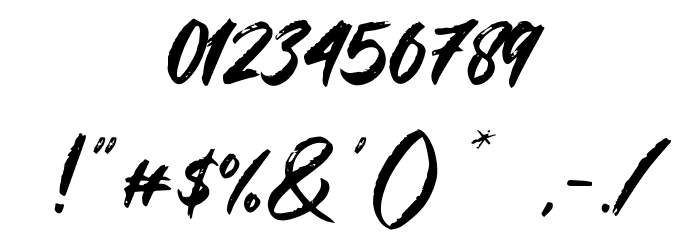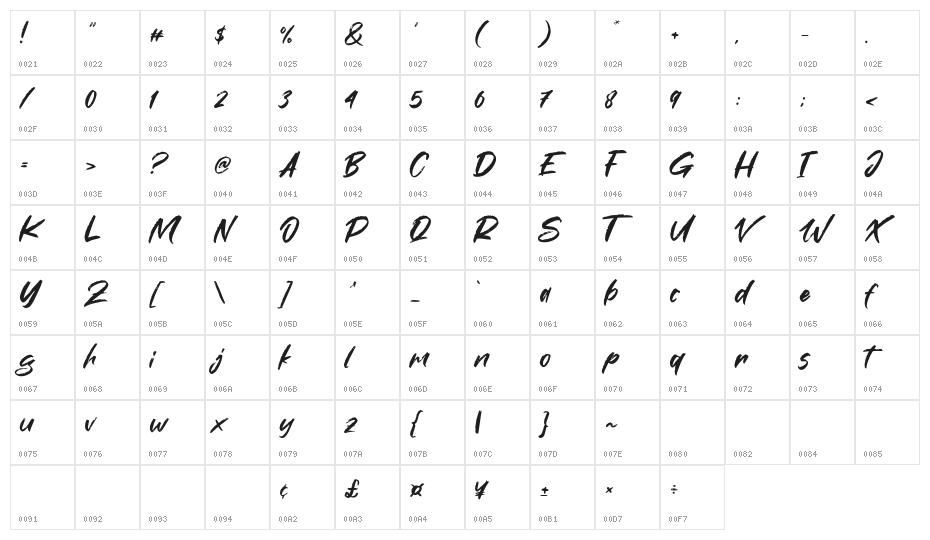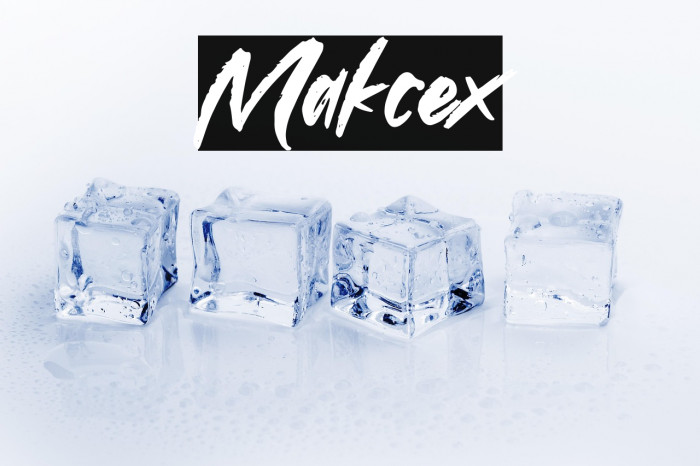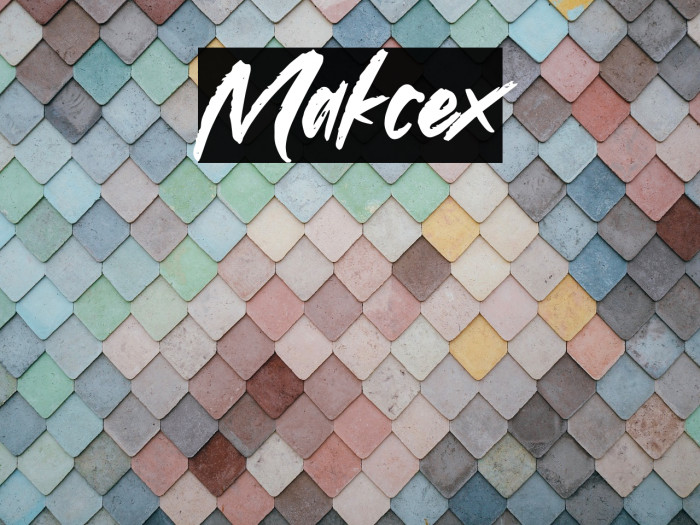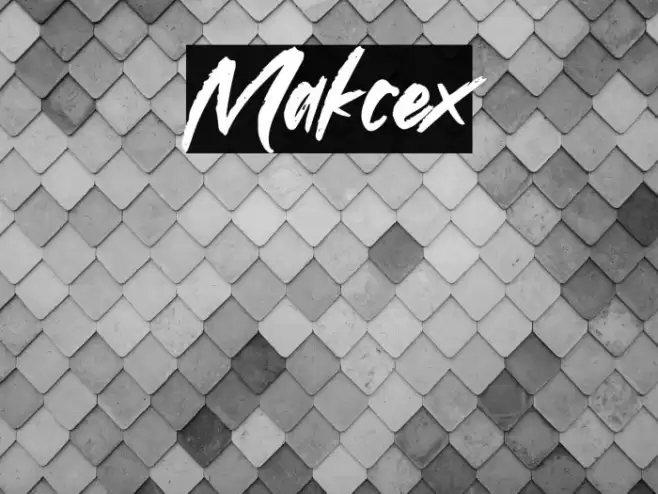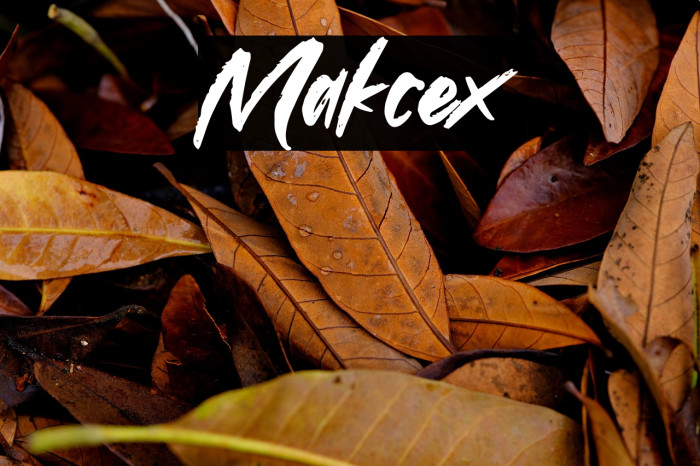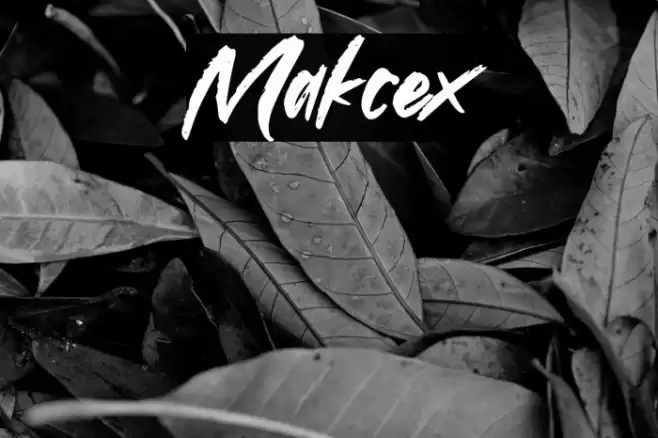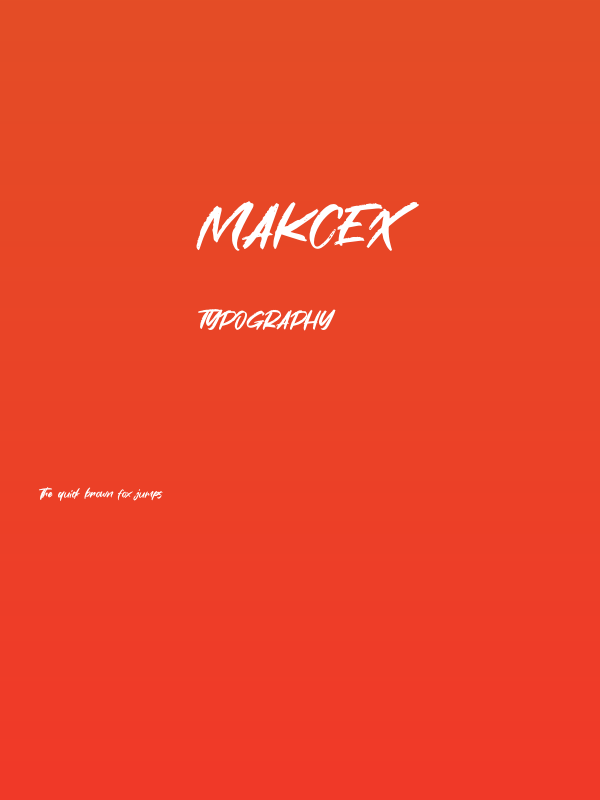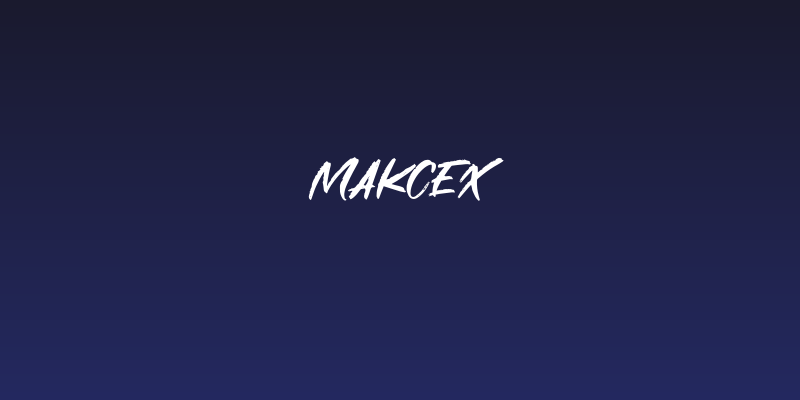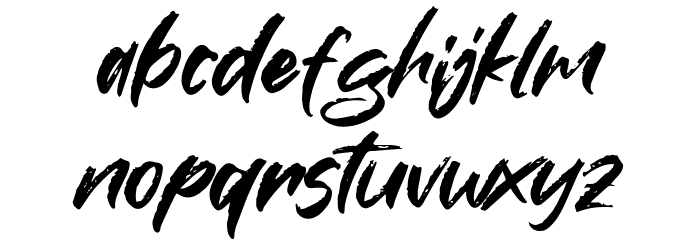
Makcex Font
Makcex Description
This font features a bold, energetic script style with a hand-drawn appearance. The letters are dynamic and fluid, with a sense of motion and spontaneity. The strokes vary in thickness, creating a lively and expressive look. The uppercase and lowercase letters maintain a consistent style, while the numbers and special characters complement the overall design. This font exudes a sense of creativity and artistic flair, making it suitable for projects that require a personal and informal touch.